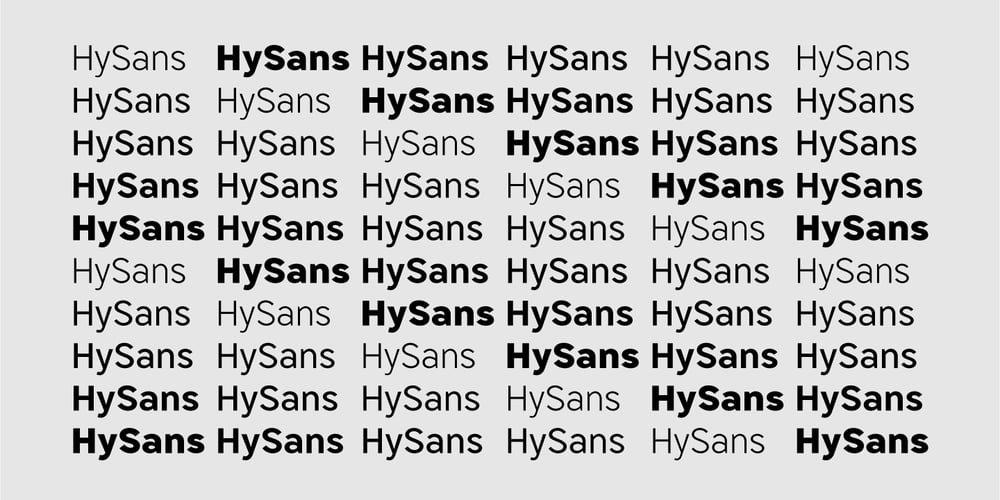
HF HySans
HF HySans font
HF HySans Font Family was designed by Jiying Lee, Chiawen Tsau and published by HyFont Studio. HF HySans contains 5 styles and family package options. HySans has its roots in contemporary typefaces with humanist touches. HySans is designed to fit digital screen from desktop to portable devices. It is strongly legible from headline to body copy with a high x-height design which helps the lowercase feel as imposing as it’s all caps counterpart. HySans is available in Five weights with 3 packages. Generously use it everyday, for everything.